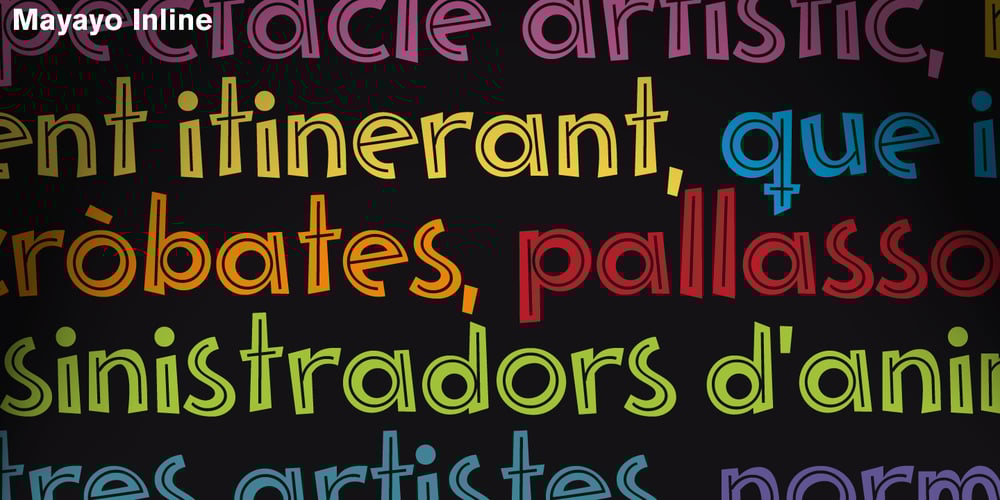
Mayayo
Mayayo font
Mayayo Font Family was designed by Enric Jardí and published by Type-Ø-Tones. Mayayo contains 3 styles and family package options. We usually describe Mayayo as no good for condolence letters, nor for carving inscriptions, etc. Indeed, as we have seen, the designers who choose Mayayo used it in funny different ways.